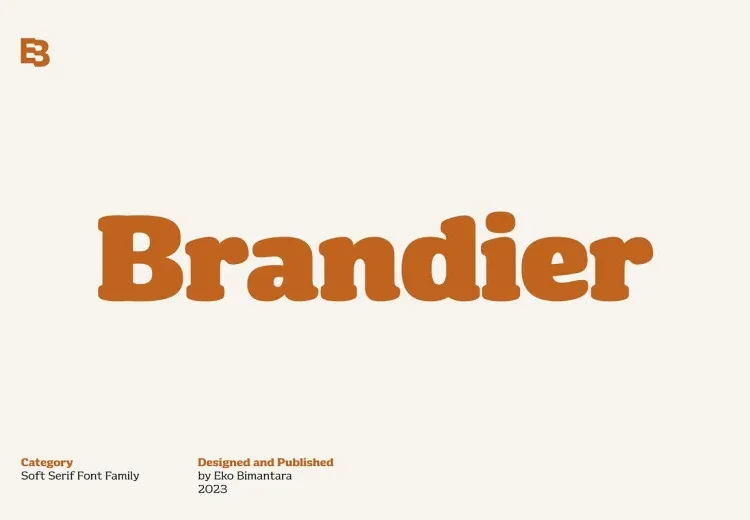
Brandier Font
Brandier is a charming typeface that draws inspiration from the typography of the seventies, featuring soft edges and captivating designs with bold, heavy weights. Its distinctive style brings warmth and fun to any project, thanks to its large x-height and carefully balanced regular and italic styles. The font is designed to offer both excellent readability and visual interest, making it perfect for display text, logos, web designs, and more.
The versatility of Brandier ensures that it works well for a variety of creative projects. Whether you’re working on branding, packaging, or graphic design, Brandier’s 16 styles—from Thin to Black—offer the flexibility needed for everything from subtle text usage to bold visual statements. The font’s matching Italic styles further enhance its range, giving you the freedom to experiment with different compositions.
Ideal for projects that require a retro yet timeless aesthetic, Brandier works seamlessly for creating logos, headlines, and engaging website designs. Its unique personality will add character to your designs, making it a valuable addition to any font library.